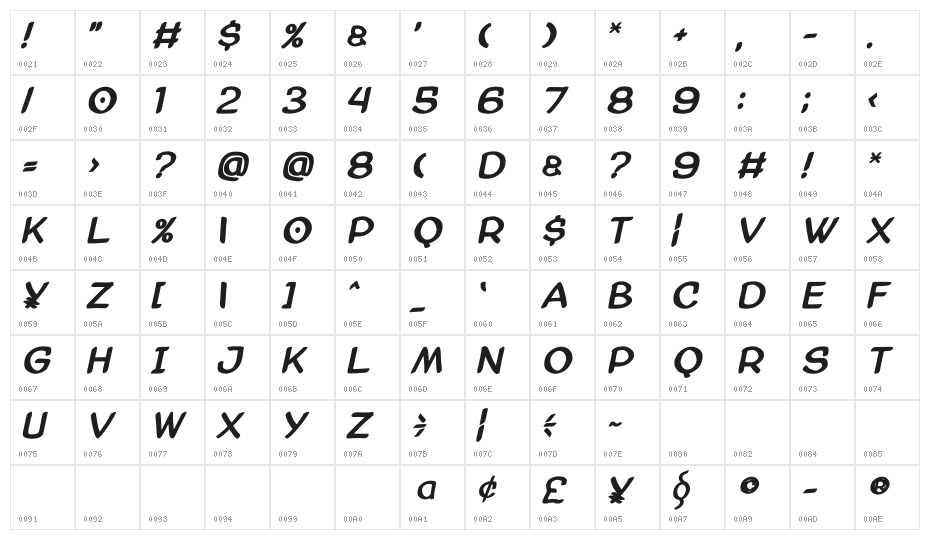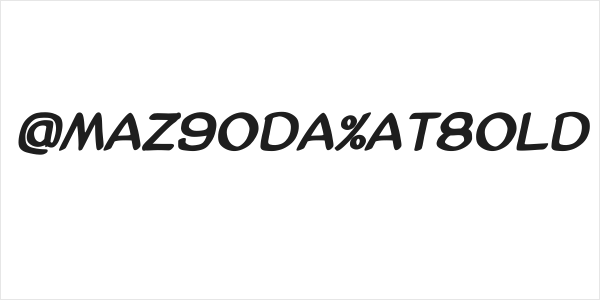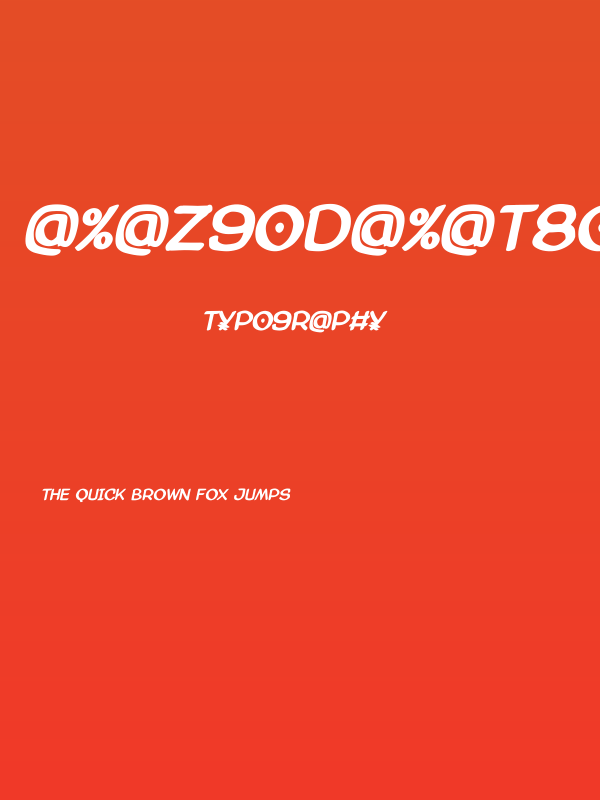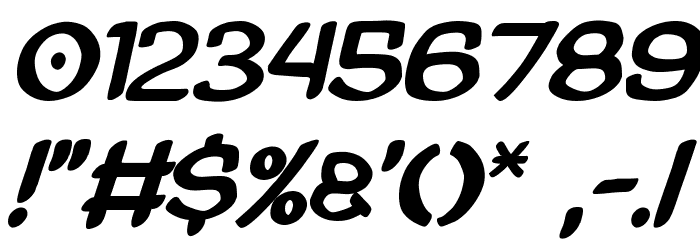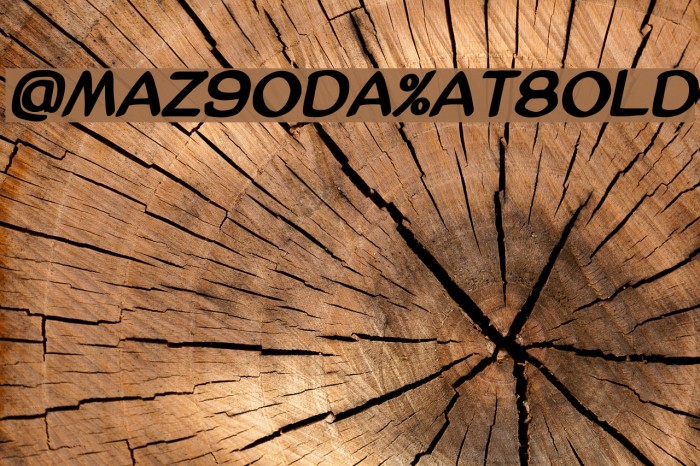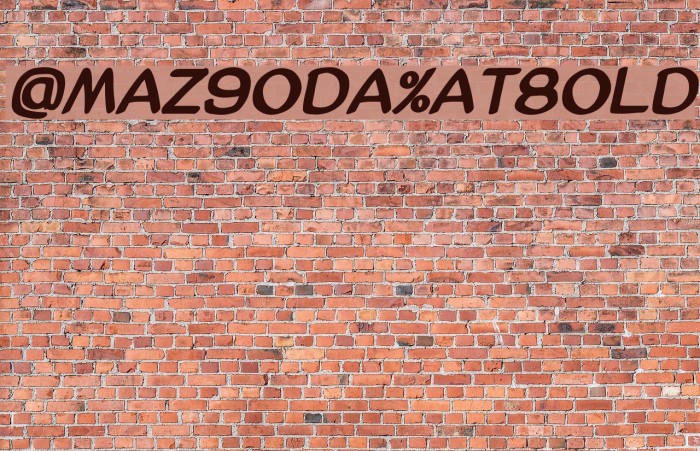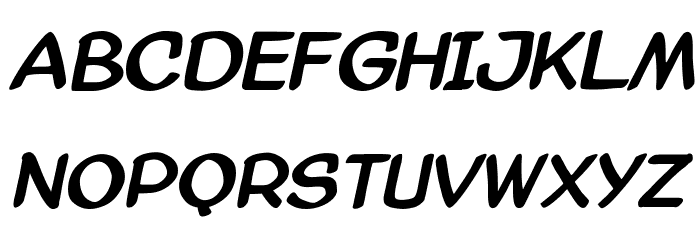
AmazGoDaMatBold Font
AmazGoDaMatBold Description
This font features a bold and dynamic style with rounded edges and a playful, energetic appearance. The characters are slightly italicized, giving them a sense of motion and fluidity. The strokes are thick and consistent, providing a strong visual impact. The font maintains a uniform weight throughout, with a slight slant that adds to its lively character. The spacing between characters is relatively tight, enhancing its compact and cohesive look. This font is well-suited for projects that require a bold and engaging display, such as headlines, posters, or branding materials.
| Proposed Projects | Ideal for headlines, posters, branding, and any project needing a bold, energetic typeface. |